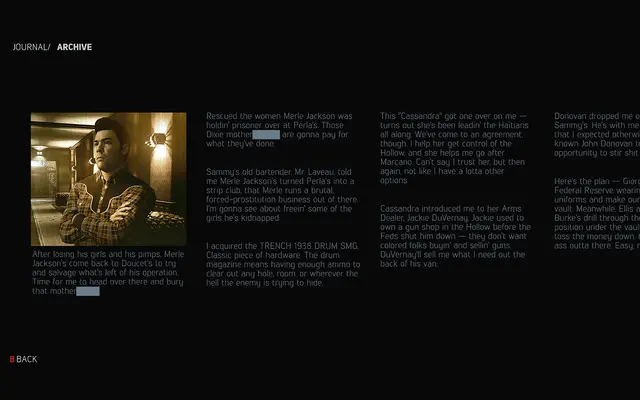
A clean, balanced geometric sans in eight weights with italics, covering Latin and Cyrillic with five numeral variants and comprehensive OpenType support.
Designed with a pure line form and careful proportioning, Lintel aims for broad usability across editorial, branding and screen contexts. The 16-font family spans eight weights from Thin to Black, each with a matching italic, and the 500-character set per style includes five numeral styles and manually edited kerning. Latin and Cyrillic coverage extends its reach into multilingual projects.
Lintel is described as a modern sans serif with pure, clean line forms and a proportioned, balanced structure, placing it firmly in the geometric sans tradition.